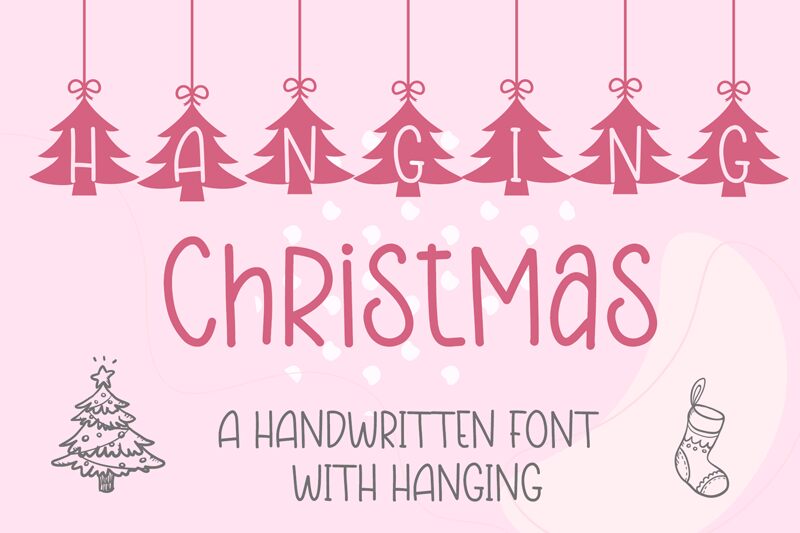
Hanging Christmas Tree by Bearytype is a whimsical and festive font that encapsulates the joy of the holiday season. Crafted with a semi-light weight and a semi-condensed width, this decorative typeface offers an aesthetic pleasure that evokes the spirit of Christmas in every character. Each letter hangs from its own charming Christmas tree, creating a delightful visual rhythm perfect for seasonal greetings, holiday invitations, and any creative endeavor that calls for a touch of yuletide cheer.
The playful yet elegant design of Hanging Christmas Tree makes it an ideal choice for those seeking to add a unique touch to their designs without compromising on readability. The careful balance between ornamental detail and clean lines ensures that this font not only captures attention but also retains it.
Whether you're designing festive banners, crafting personalized cards, or looking to bring some holiday magic to your branding projects, Hanging Christmas Tree by Bearytype stands out as an inspired choice that promises to infuse warmth and originality into your work. Let this font transform your messages into celebrations of the most heartwarming time of the year!